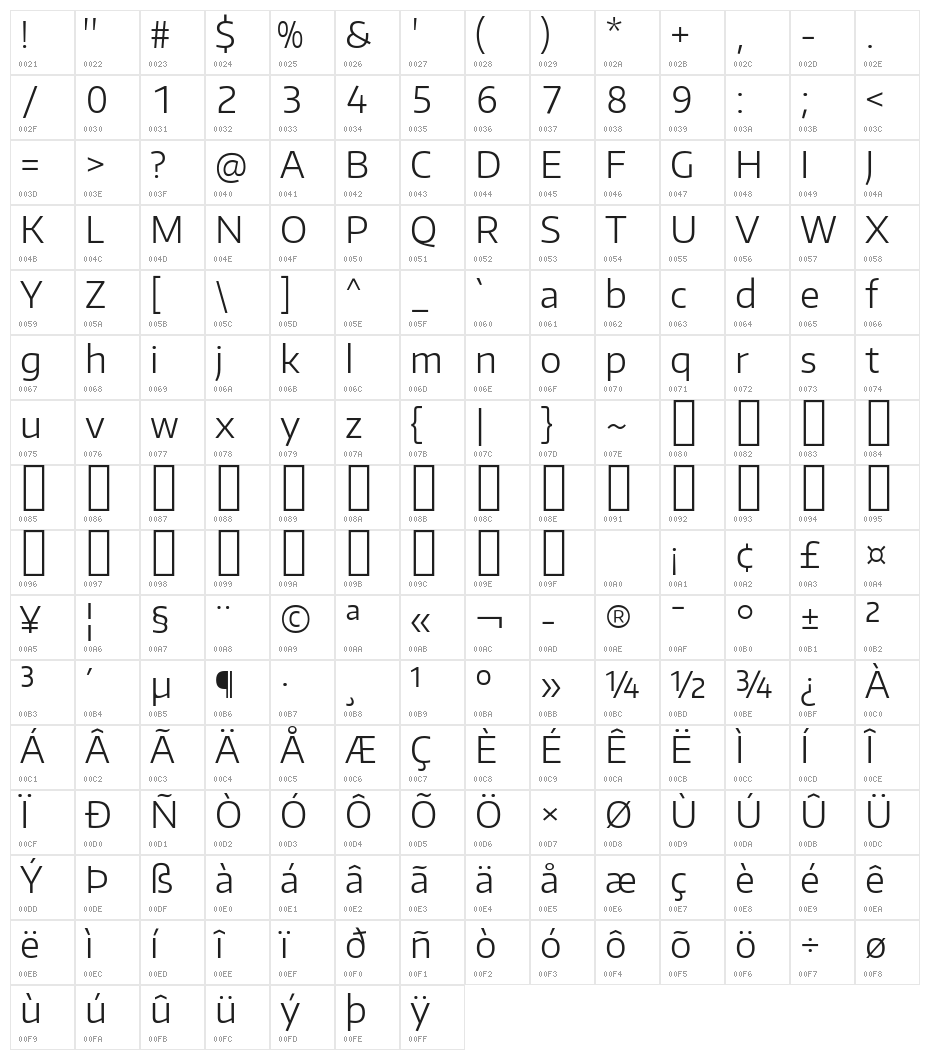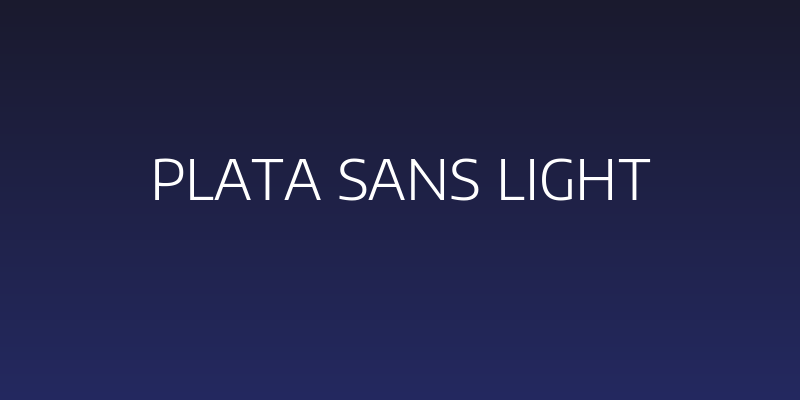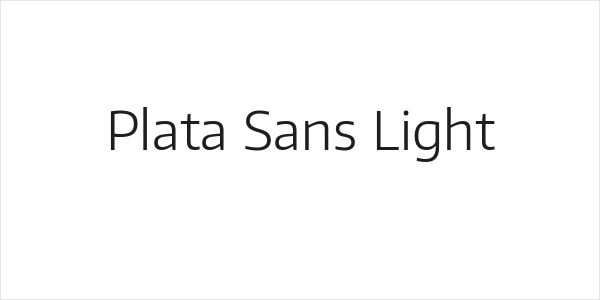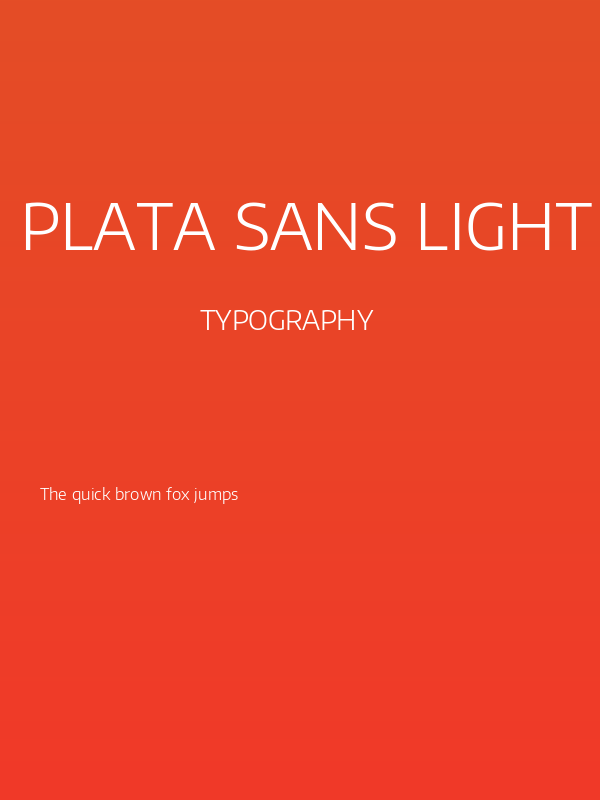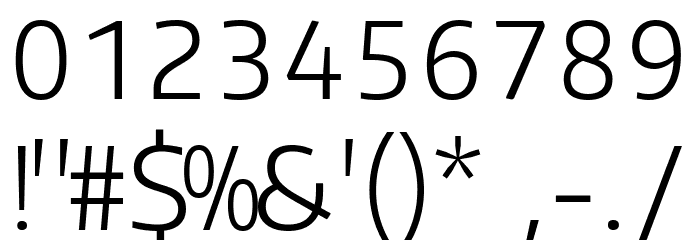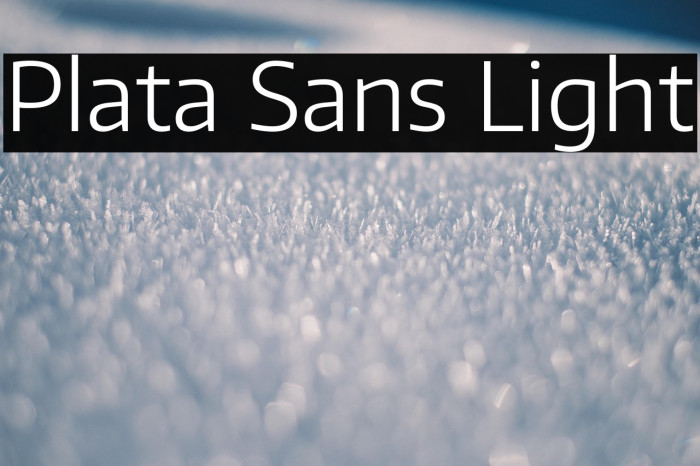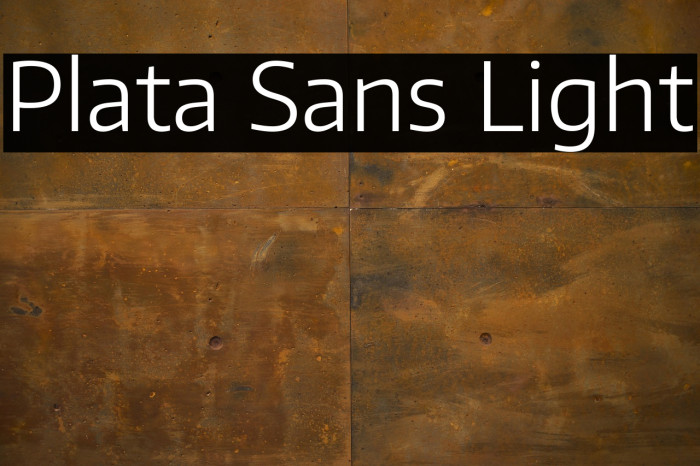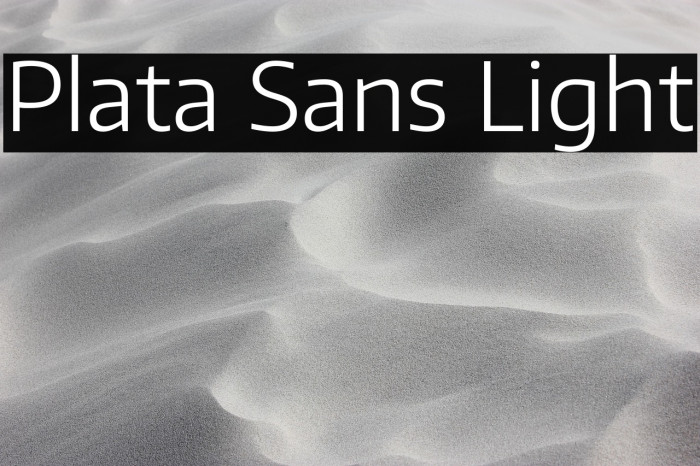
Plata Sans Light Font
Plata Sans Light Description
This font features a clean and modern sans-serif design with a light weight, making it ideal for minimalistic and contemporary projects. The characters are well-proportioned with a consistent stroke width, contributing to its readability and elegance. The uppercase letters are slightly taller than the lowercase, providing a balanced look. The numerals are clear and distinct, ensuring easy legibility. Special characters are designed with simplicity in mind, maintaining the overall aesthetic of the font.
| Proposed Projects | Ideal for web design, corporate branding, user interfaces, and editorial layouts. |